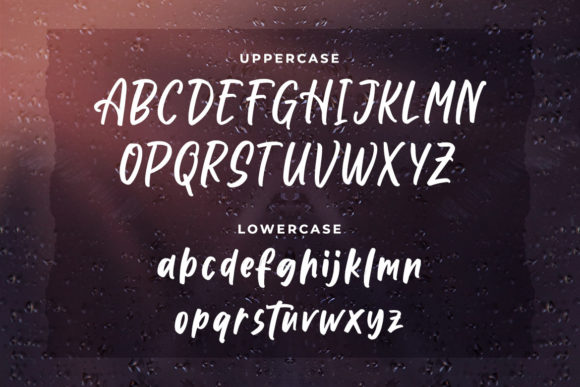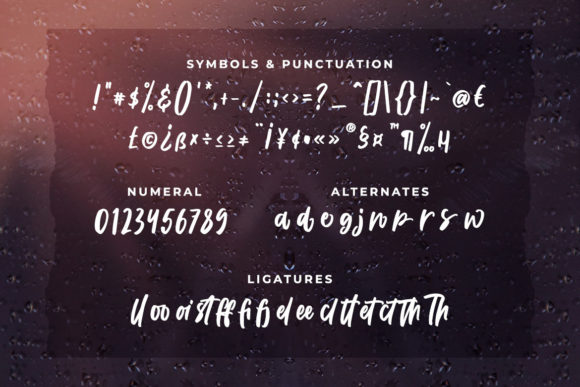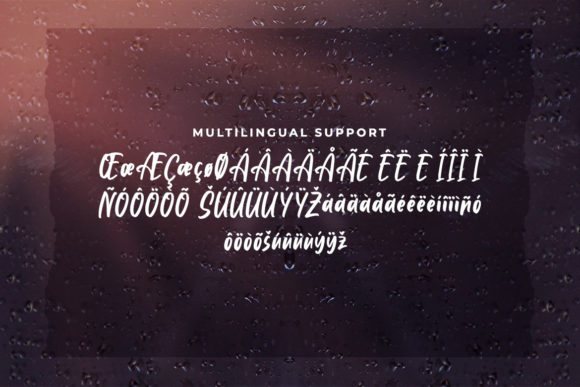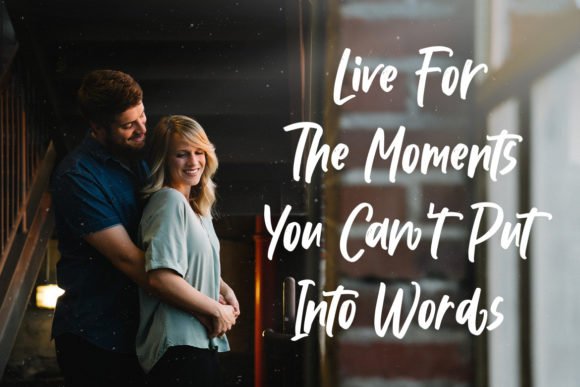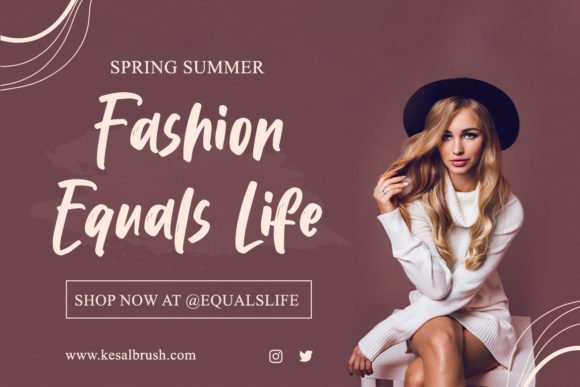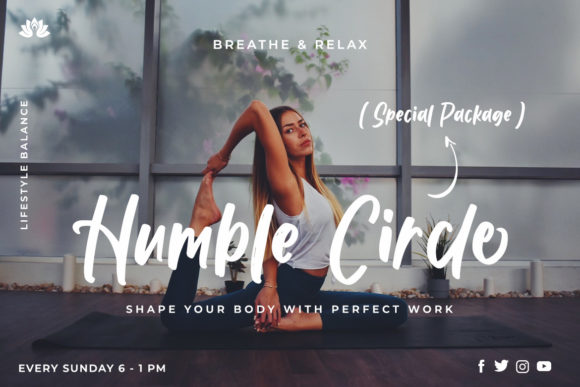
Introduction to Kesal Font
Kesal is an elegant and beautiful brush handwritten font.
It has a elegant style and is perfect for creating original designs This casual brush font is great for a logo, clothing, quotes, headings, wedding invitations, posters, and many others.